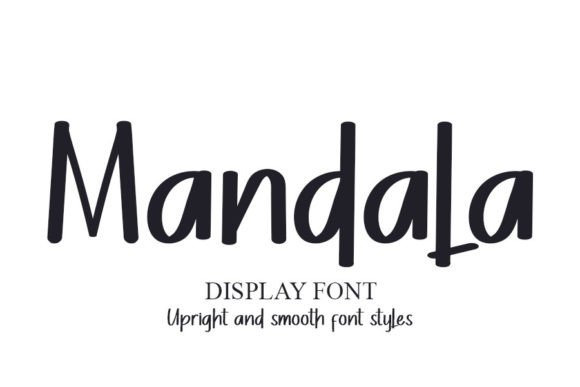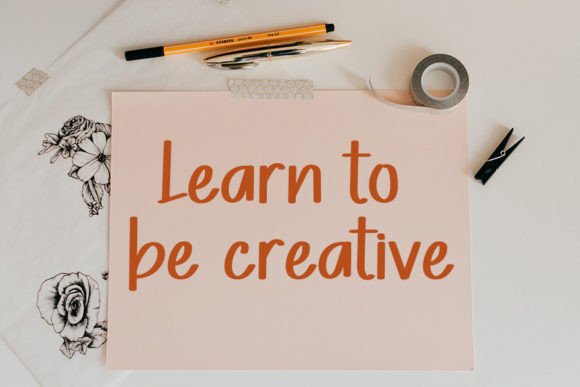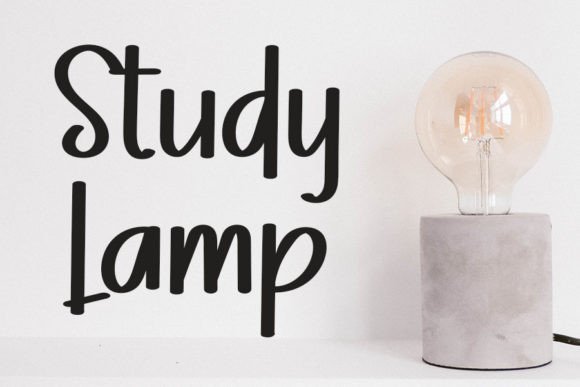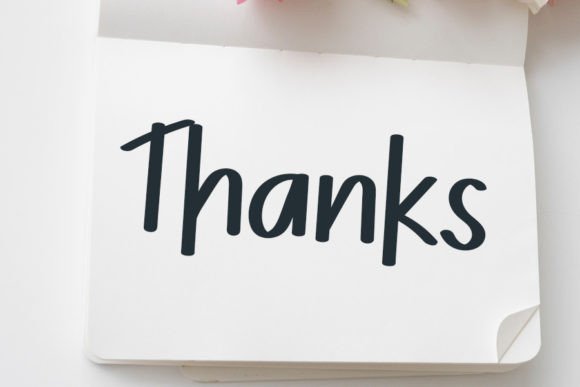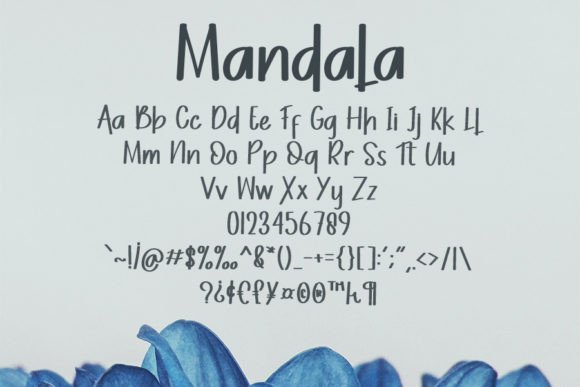
Mandala Font
About Mandala Font
The Mandala font is a modern handwritten typeface inspired by the timeless beauty of classic calligraphy. Designed with balance and elegance in mind, this font offers clean lines, varied strokes, and a stylish flow that brings sophistication to your creative projects. Whether you’re working on digital media or printed designs, Mandala adds a refined, artistic touch.
It’s neither too thick nor too thin—just the right weight to remain readable and beautiful across all applications. With its effortless charm, Mandala becomes a go-to option for creatives who want their work to feel both modern and personal.
Elegant, Versatile, and Well-Balanced
One of the most distinctive features of Mandala is its flawless balance. The characters are crafted with precision, offering consistent rhythm and graceful movement. This makes it an excellent choice for both professional and casual projects.
You can confidently use the Mandala font for:
• Logo design and personal branding
• Fashion and beauty packaging
• Wedding invitations and event stationery
• Social media posts and blog headers
• Custom merchandise and lifestyle content
In addition, its versatility allows you to pair it easily with minimalist sans-serifs or classic serif fonts to create a modern typography system that communicates clearly and beautifully.
A Handwritten Feel with a Modern Twist
Mandala takes inspiration from calligraphy but doesn’t feel old-fashioned. Instead, it’s polished and fresh, making it suitable for today’s digital and print design needs. Its effortless style works across different themes, whether you’re aiming for something romantic, artistic, or sleek.
Because of its natural flow, this font also works well in quotes, headers, and short texts that need to stand out. The handcrafted touch ensures each word feels warm and expressive, while the spotless structure keeps it professional.
Enhance Your Designs with a Touch of Art
If you’re looking for a handwritten font that blends elegance with modern sensibility, the Mandala font is a perfect choice. It elevates your message with grace, clarity, and personal expression—ideal for everything from logos to lifestyle content.